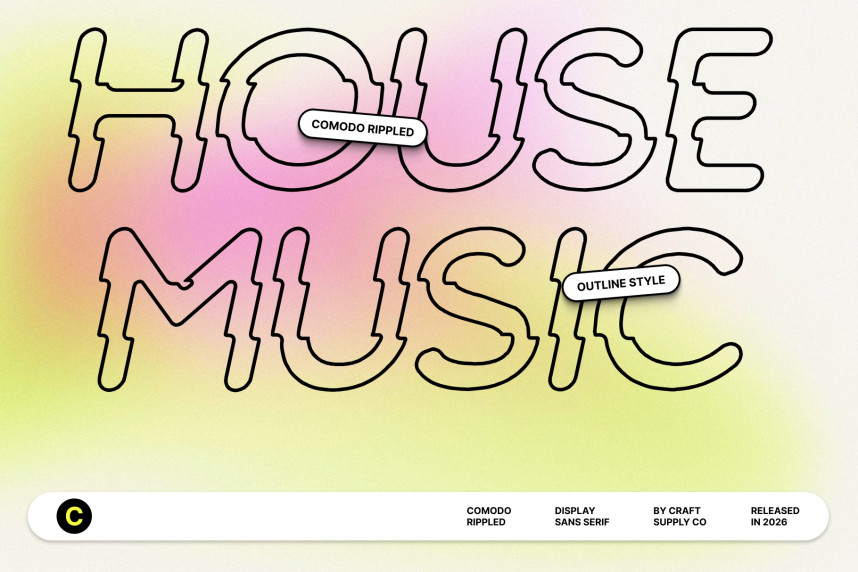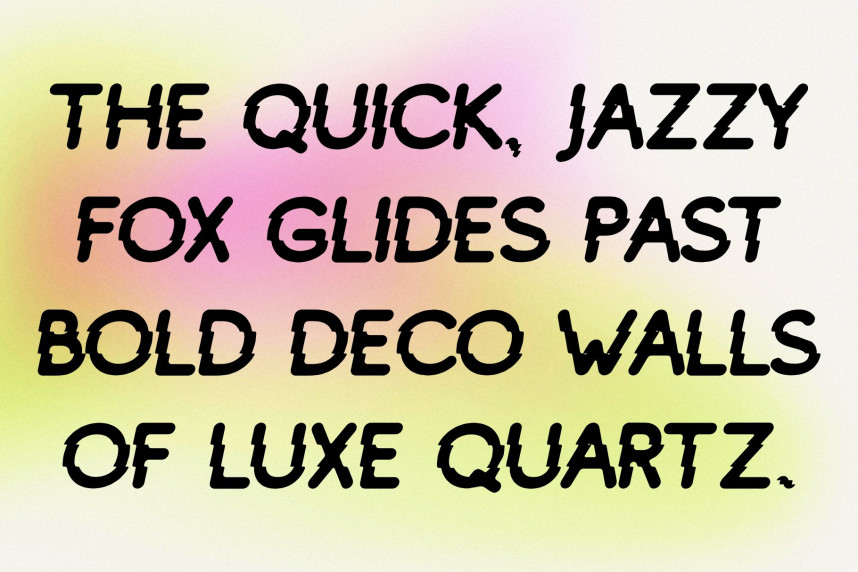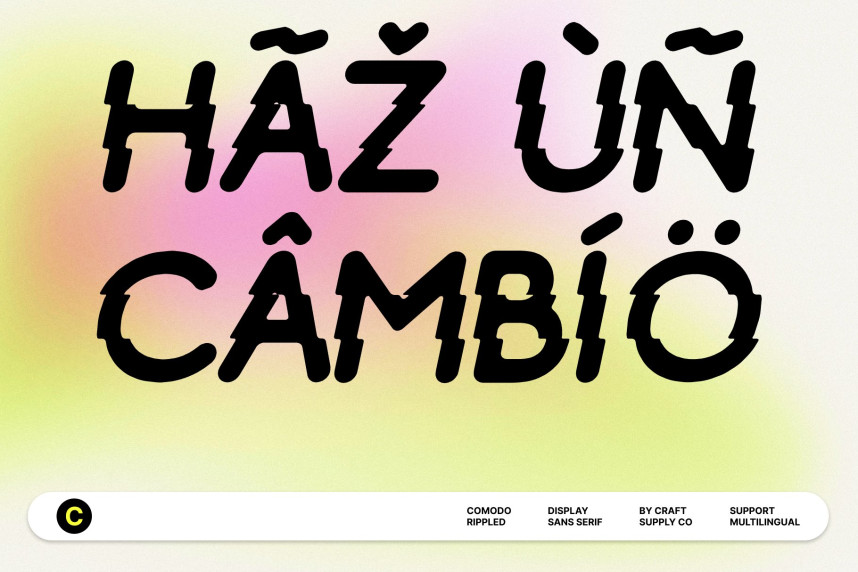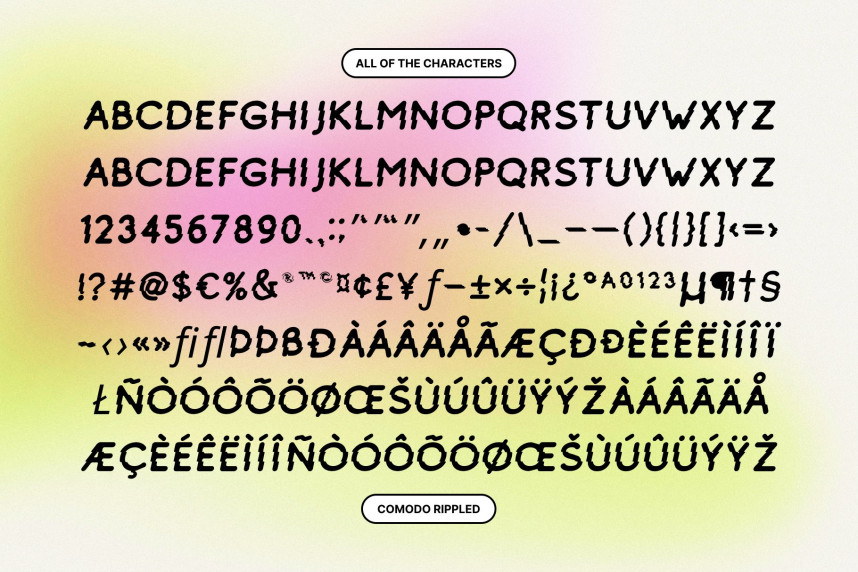
Comodo Rippled Font – Sans Serif Display Font: Where Contemporary Elegance Meets Liquid Wave Motion
Clean Contemporary Forms with Fluid Visual Energy
This is a sans serif display font designed with fluid contemporary elegance and modern visual clarity. Its clean structure and balanced proportions create a sleek and stylish appearance that feels fresh, dynamic, and highly expressive. Every character carries a smooth modern personality, making the font perfect for creative projects that seek both sophistication and energetic movement.